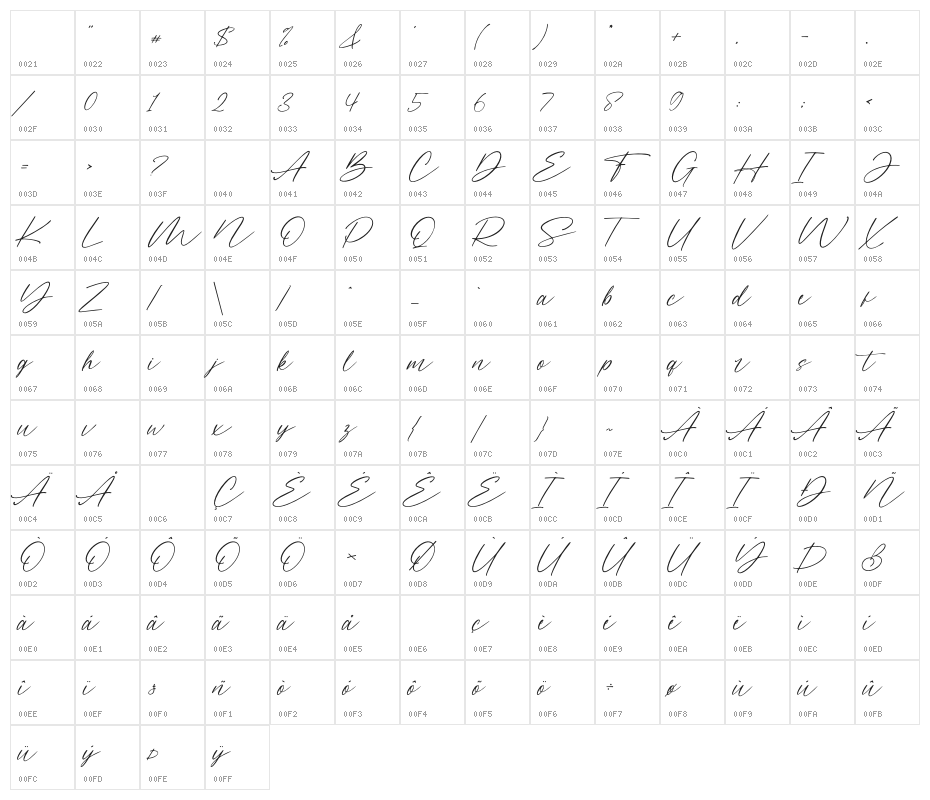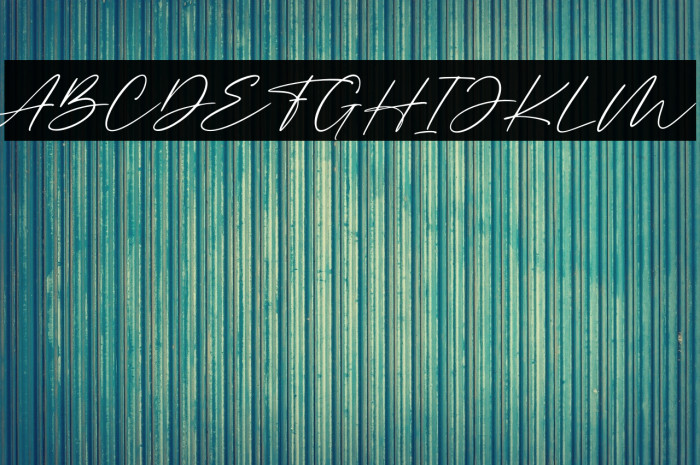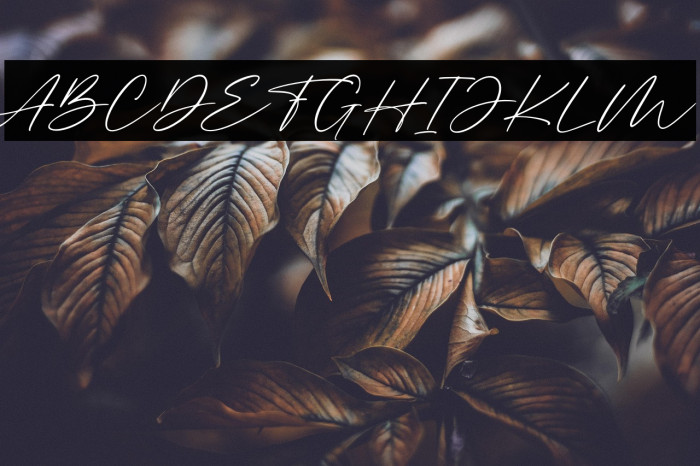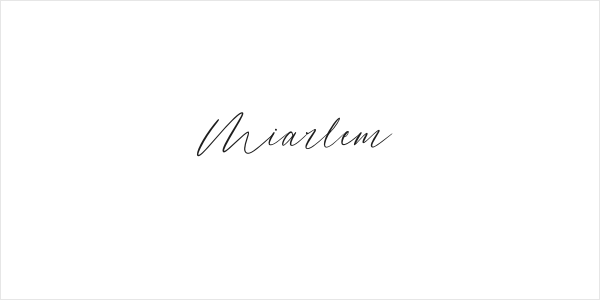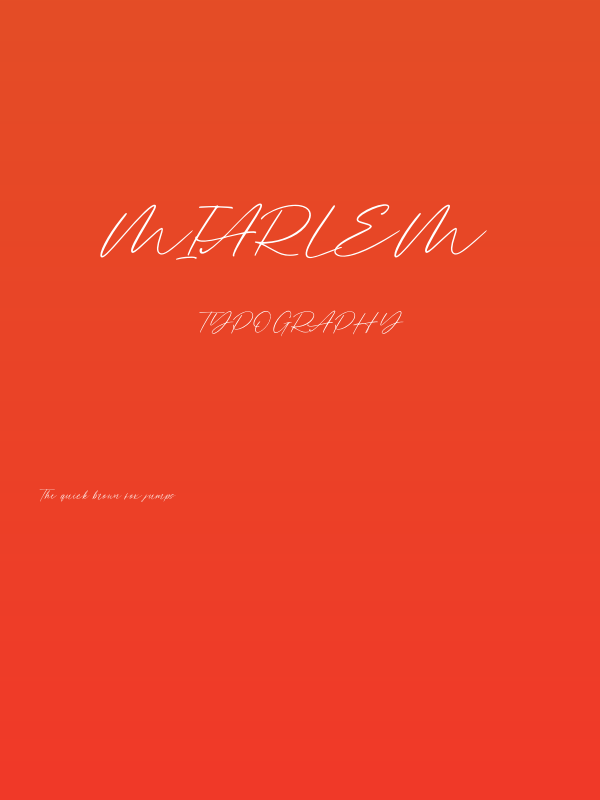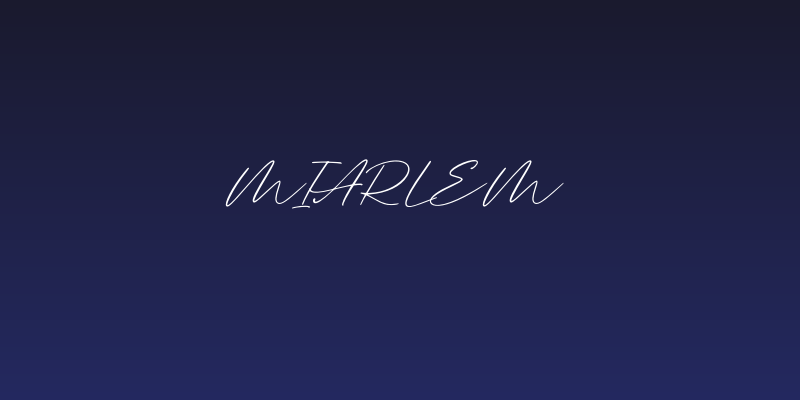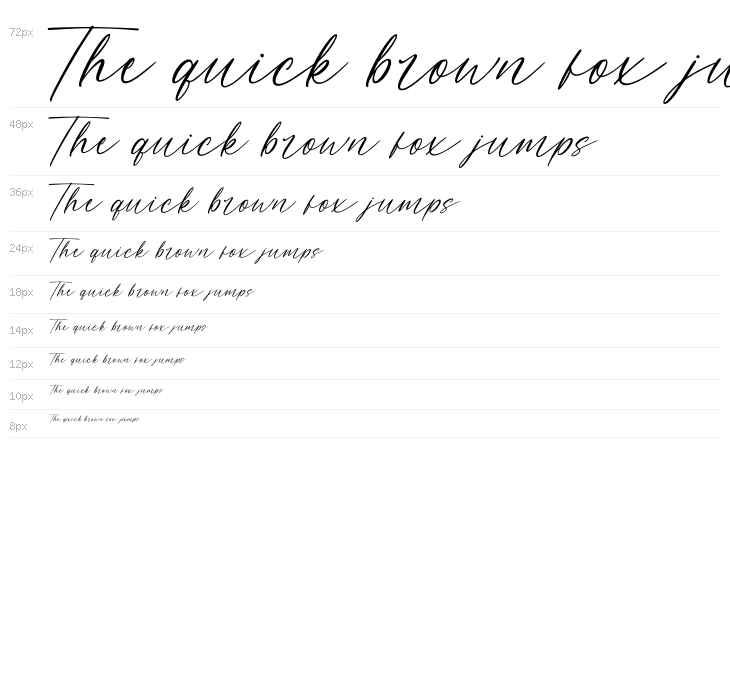
Miarlem Font
Miarlem Description
This elegant script font features a fluid, handwritten style with smooth, flowing lines and a natural, organic feel. The uppercase letters are slightly more elaborate, with graceful loops and curves, while the lowercase letters maintain a consistent, connected flow. The numerals and special characters complement the alphabet with a similar cursive style, enhancing the overall aesthetic. The font's thin strokes and delicate appearance give it a refined and sophisticated look, making it ideal for projects that require a touch of elegance and personalization.
| Overall Style | Elegant, Handwritten |
| Proposed Projects | Ideal for wedding invitations, greeting cards, personal branding, and elegant packaging designs. |